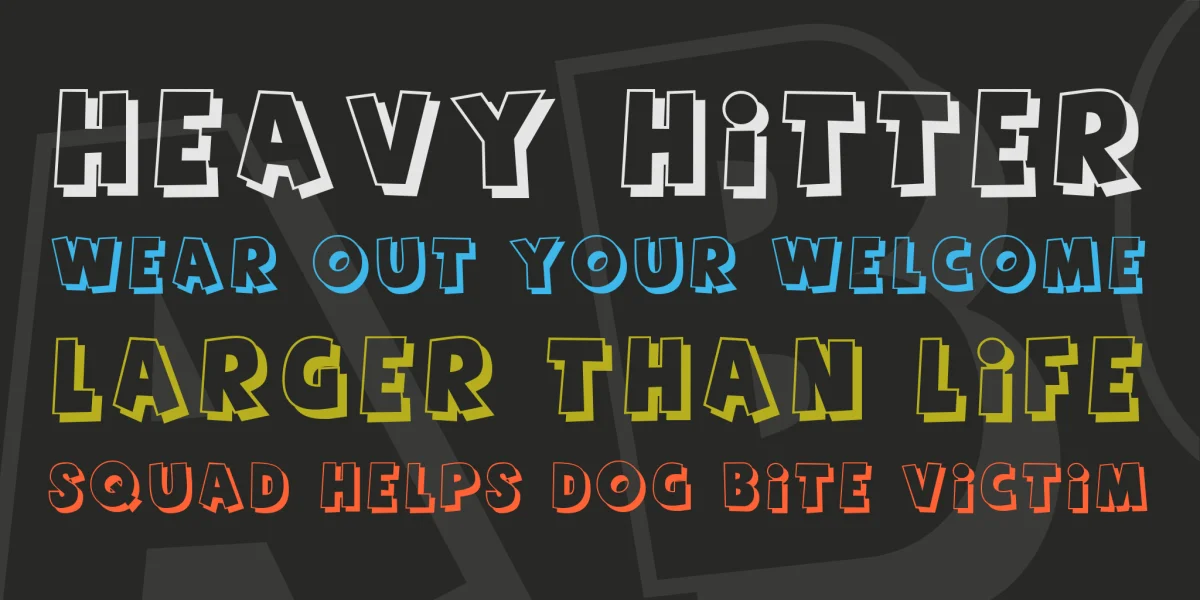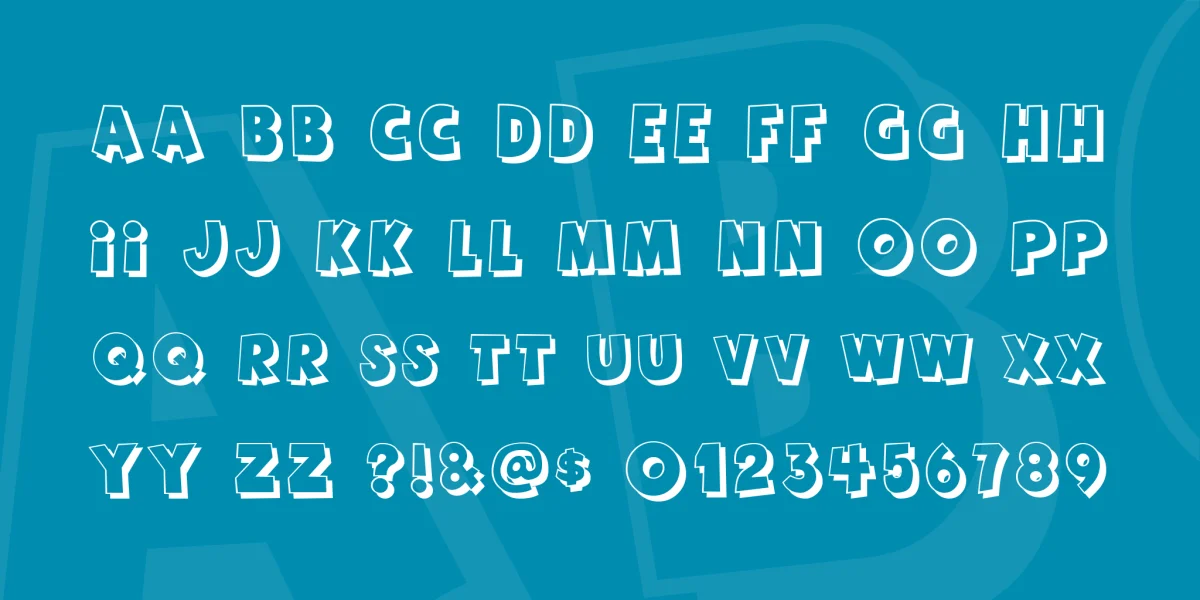
The long awaited update of the "Agent Orange" font has finally made it! Agent Red is build upon Agent Orange, but Agent Red has got smoother curves and lacks the flaws of Agent Orange!